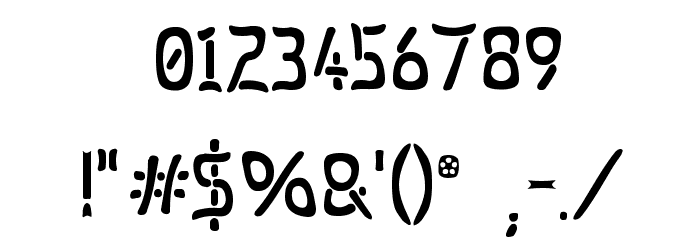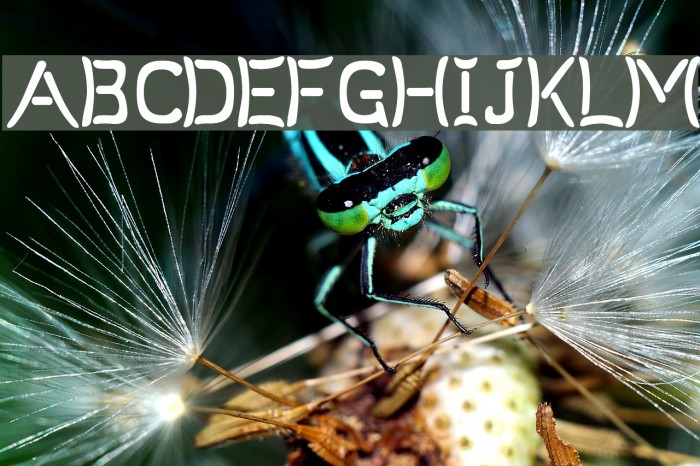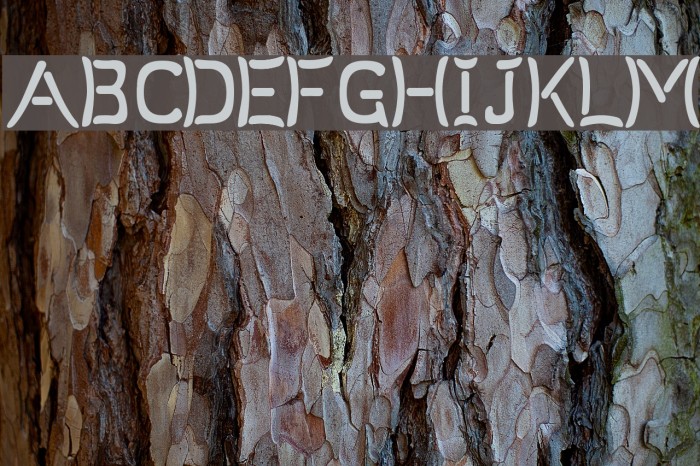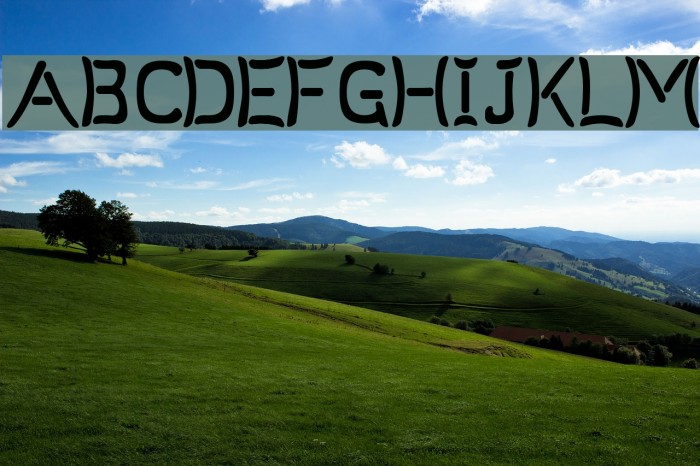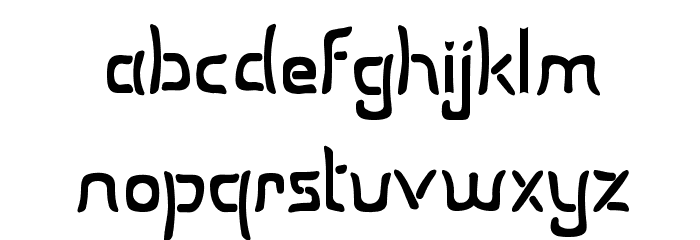
Um Sticks Alienated Font
Um Sticks Alienated Description
This font features a unique and playful design with an alien-like aesthetic. The characters have a whimsical and irregular form, giving them a distinctive, otherworldly appearance. The strokes are uneven, with varying thicknesses that add to the quirky and unconventional style. The uppercase and lowercase letters maintain a consistent theme, with rounded edges and a slightly distorted look. The numerals and special characters follow the same design principles, ensuring a cohesive appearance across all glyphs. This font's unusual style makes it stand out, making it suitable for creative and imaginative projects.